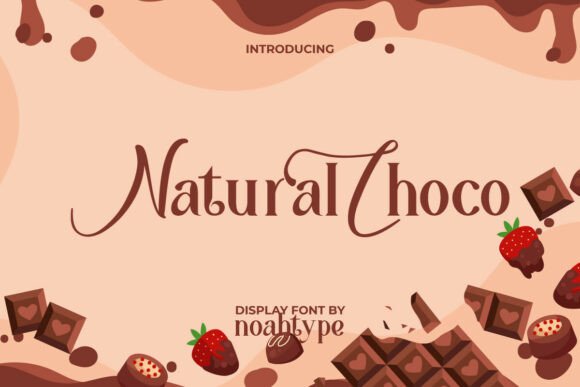
Introducing Natural Choco Font: The Adorable Modern Display Font
In the world of typography, fonts play a crucial role in conveying messages, expressing emotions, and creating brand identities. Among the numerous fonts available, Natural Choco Font stands out as a unique and adorable modern display font, carefully crafted by NoahType. This font’s distinctive combination of script for uppercase and serif for lowercase letters exudes a beautiful impression, making it an excellent choice for various design applications.
What is Natural Choco Font?
Natural Choco Font is a modern display font that boasts a charming and elegant appearance. Created by NoahType, a renowned font designer, this font is characterized by its distinctive blend of script and serif styles. The uppercase letters are designed in a beautiful script style, while the lowercase letters feature a classic serif design. This unique combination gives Natural Choco Font its distinctive look and feel.
Key Features of Natural Choco Font
- Unique Combination of Script and Serif: Natural Choco Font’s blend of script for uppercase and serif for lowercase letters creates a visually appealing contrast that sets it apart from other fonts.
- Adorable and Modern Design: The font’s design is both adorable and modern, making it perfect for a wide range of design applications, from branding and advertising to packaging and stationery.
- High Versatility: Natural Choco Font is highly versatile and can be used for various design projects, including brand image, cover design, custom design, invitation, label, marketing material, menu, poster, product packaging, quote, signage, stationery, web design, and more.
Uses of Natural Choco Font
Natural Choco Font’s versatility and unique design make it an excellent choice for a wide range of design applications. Here are some of the ways you can use this font:
- Brand Image: Create a lasting impression with Natural Choco Font by using it for your brand’s logo, tagline, or marketing materials.
- Cover Design: Use Natural Choco Font to create eye-catching cover designs for books, magazines, or other publications.
- Custom Design: Add a personal touch to your designs with Natural Choco Font, perfect for creating custom designs for clients or personal projects.
- Invitation: Make your invitations stand out with Natural Choco Font, ideal for weddings, parties, or other special events.
- Label and Packaging: Use Natural Choco Font for label and packaging design, adding a touch of elegance and sophistication to your products.
- Marketing Material: Create effective marketing materials, such as brochures, flyers, or posters, with Natural Choco Font.
- Menu Design: Add a touch of class to your restaurant or cafe’s menu with Natural Choco Font.
- Poster Design: Create stunning posters with Natural Choco Font, perfect for advertising, promotion, or informational purposes.
- Product Packaging: Use Natural Choco Font for product packaging, adding a touch of elegance and sophistication to your products.
- Quote and Signage: Use Natural Choco Font for quotes, signage, or other display purposes, making your message stand out.
- Stationery: Add a touch of elegance to your stationery, such as letterheads, envelopes, or business cards, with Natural Choco Font.
- Web Design: Use Natural Choco Font for web design, adding a touch of sophistication and elegance to your website.
Why Choose Natural Choco Font?
With so many fonts available, why choose Natural Choco Font? Here are some compelling reasons:
- Unique Design: Natural Choco Font’s unique blend of script and serif styles sets it apart from other fonts.
- High Versatility: This font is highly versatile and can be used for a wide range of design applications.
- Elegant and Sophisticated: Natural Choco Font adds a touch of elegance and sophistication to any design.
- Easy to Read: The font’s clear and readable design makes it perfect for body text, headlines, or display purposes.
Tips for Using Natural Choco Font
To get the most out of Natural Choco Font, here are some tips:
- Use it for Display Purposes: Natural Choco Font is perfect for display purposes, such as headlines, titles, or quotes.
- Pair it with Other Fonts: Experiment with pairing Natural Choco Font with other fonts to create a unique and visually appealing design.
- Adjust Font Size and Style: Adjust the font size and style to suit your design needs, from large headlines to smaller body text.
- Use it for Branding: Use Natural Choco Font for branding purposes, such as logos, taglines, or marketing materials.
In conclusion, Natural Choco Font is an adorable modern display font that offers a unique blend of script and serif styles. Its high versatility, elegant design, and ease of use make it an excellent choice for a wide range of design applications. Whether you’re a designer, marketer, or business owner, Natural Choco Font is sure to add a touch of sophistication and elegance to your designs.